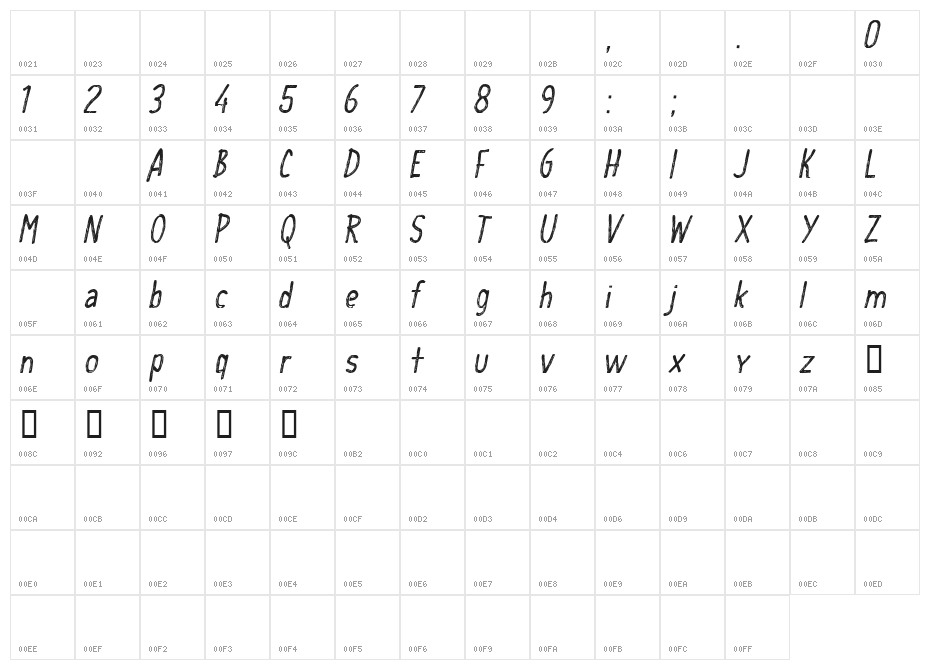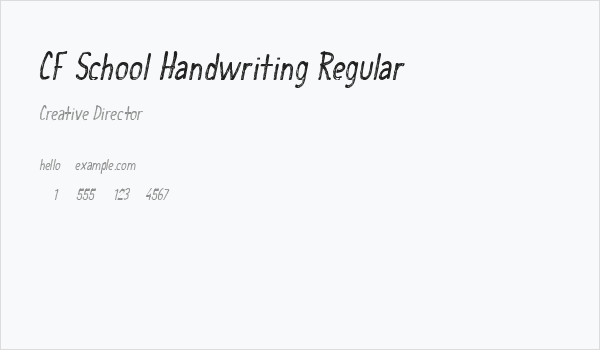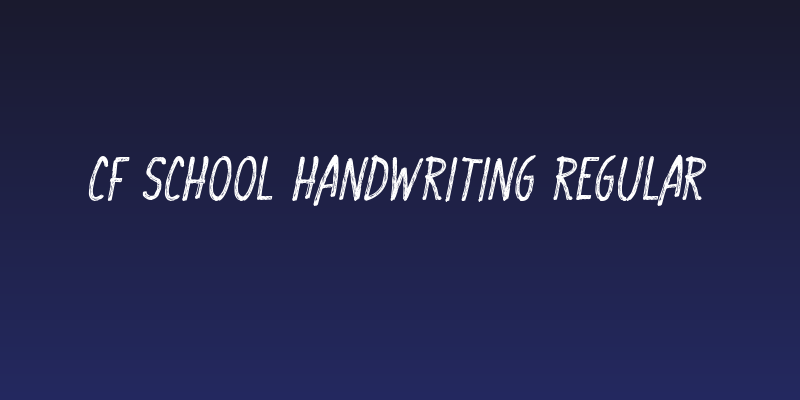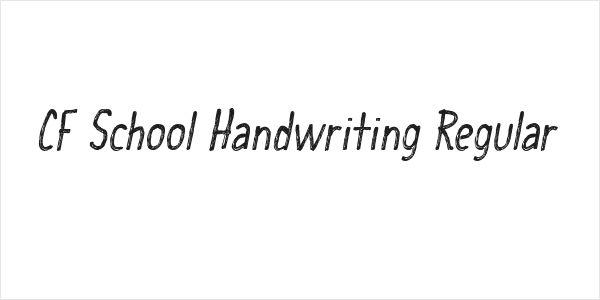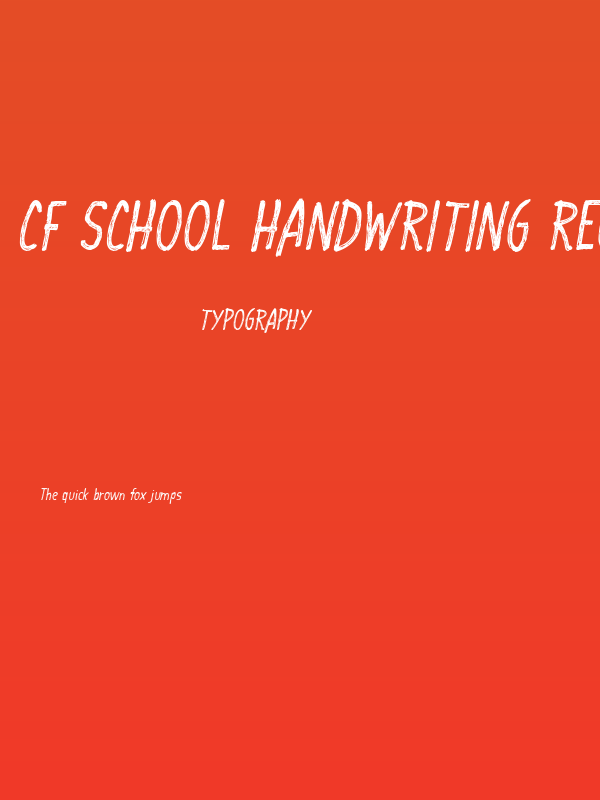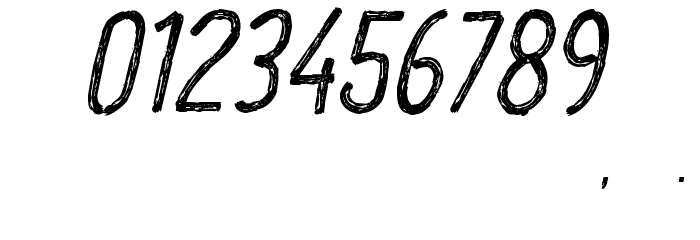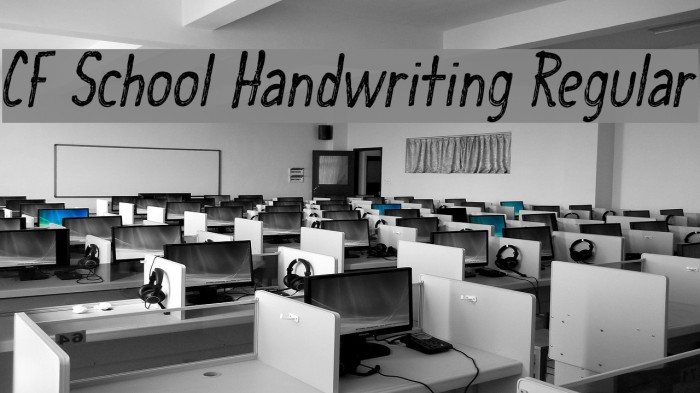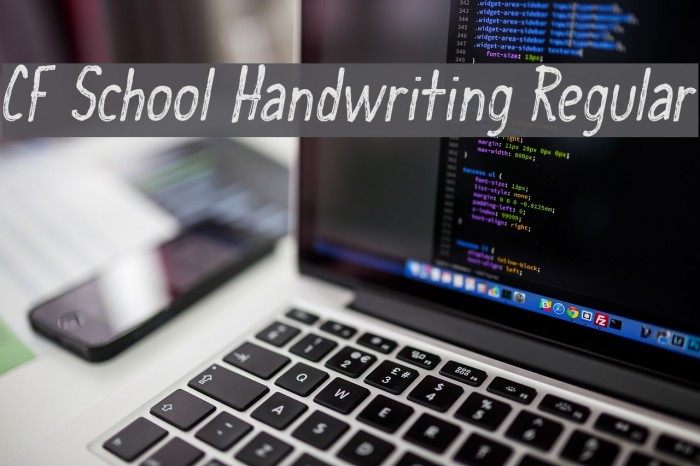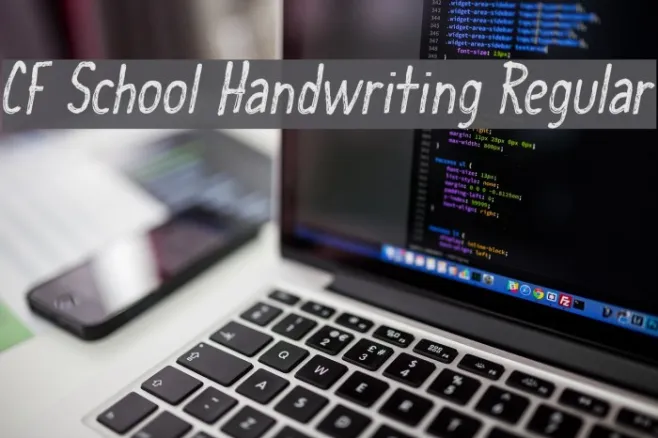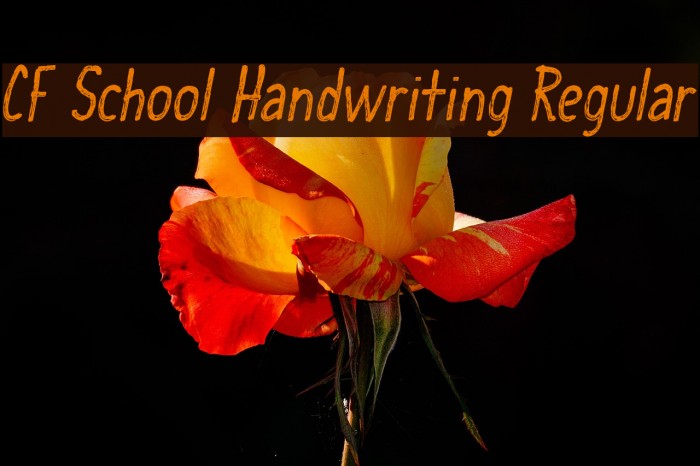
CF School Handwriting Regular Font
CF School Handwriting Regular Description
This font embodies a playful and casual handwritten style, reminiscent of school handwriting. The letters are slightly slanted, giving a dynamic and informal feel. Each character has a unique, hand-drawn appearance with subtle variations that add to its charm. The strokes are uneven, mimicking the natural flow of handwriting, and the overall texture is slightly rough, enhancing its authenticity. This font is perfect for projects that require a personal touch, such as children's books, educational materials, or creative invitations.
| Use Case | Headlines, Creative projects, Informal communications |
| Proposed Projects | Ideal for children's books, educational materials, creative invitations, and personal notes. |